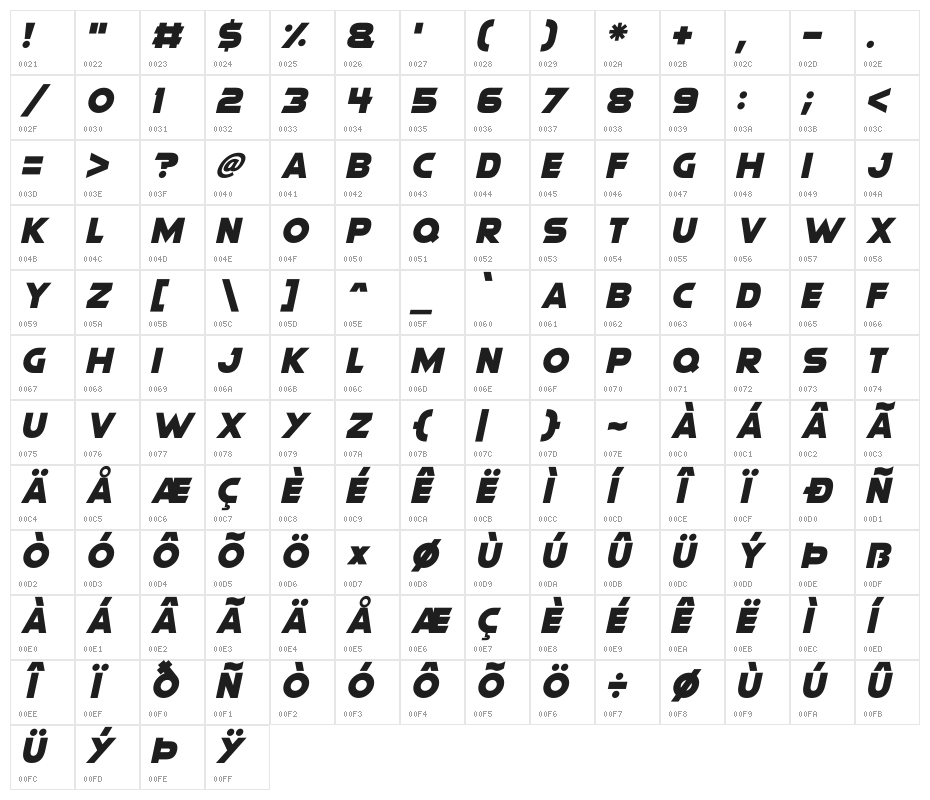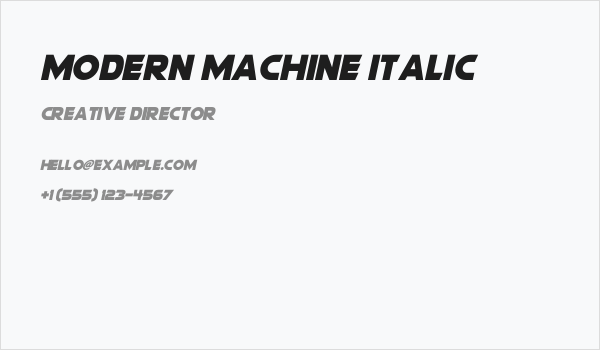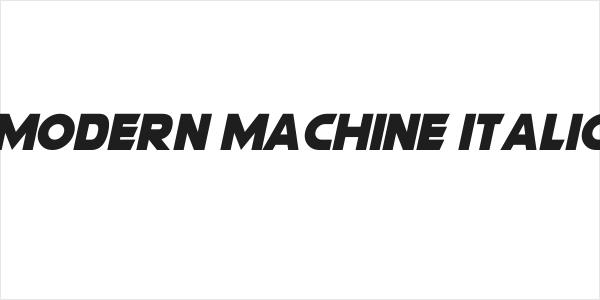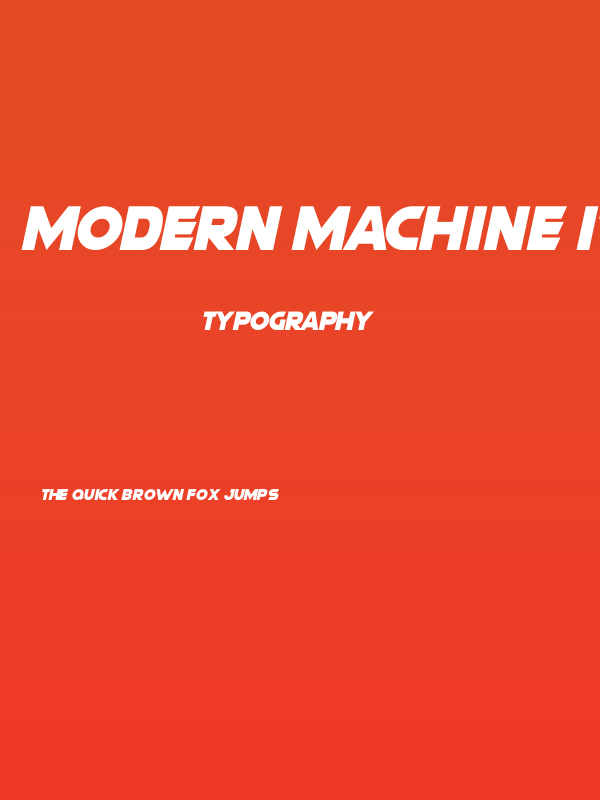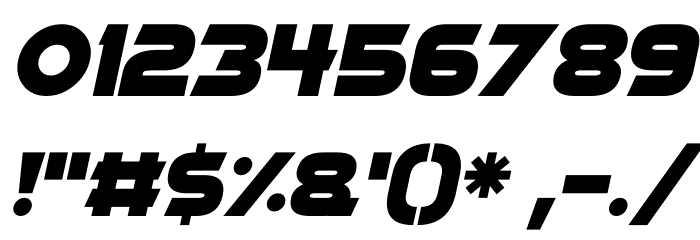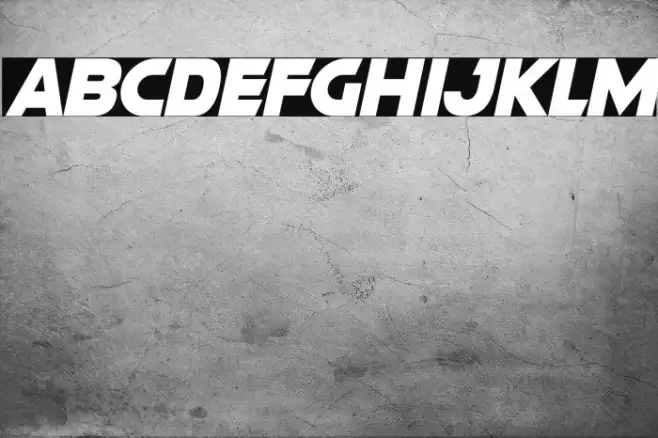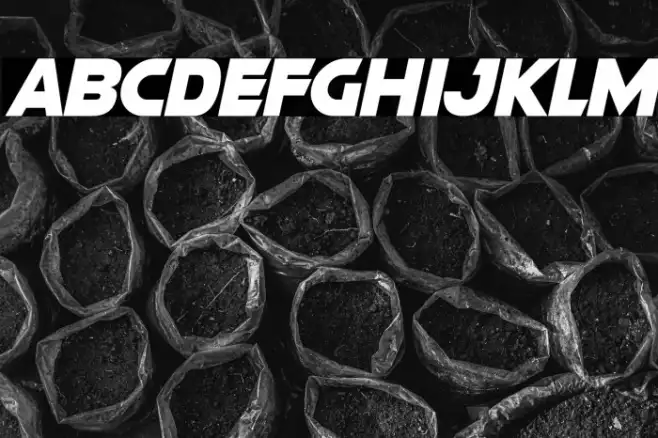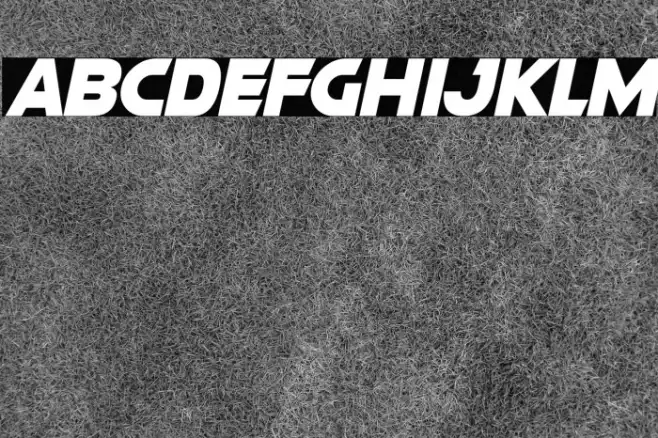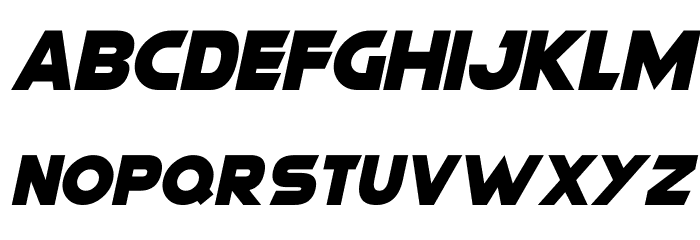
Modern Machine Italic Font
Modern Machine Italic Description
This font features a bold and dynamic style with a distinct italic slant, giving it a sense of motion and modernity. The characters are thick and robust, with a consistent stroke width that conveys strength and stability. The design is clean and geometric, with sharp angles and a futuristic feel. The uppercase and lowercase letters maintain a uniform appearance, while the numerals and special characters integrate seamlessly into the overall design. This font is ideal for projects that require a bold statement and a contemporary look.
| Proposed Projects | Ideal for technology branding, sports logos, futuristic posters, and dynamic headlines. |